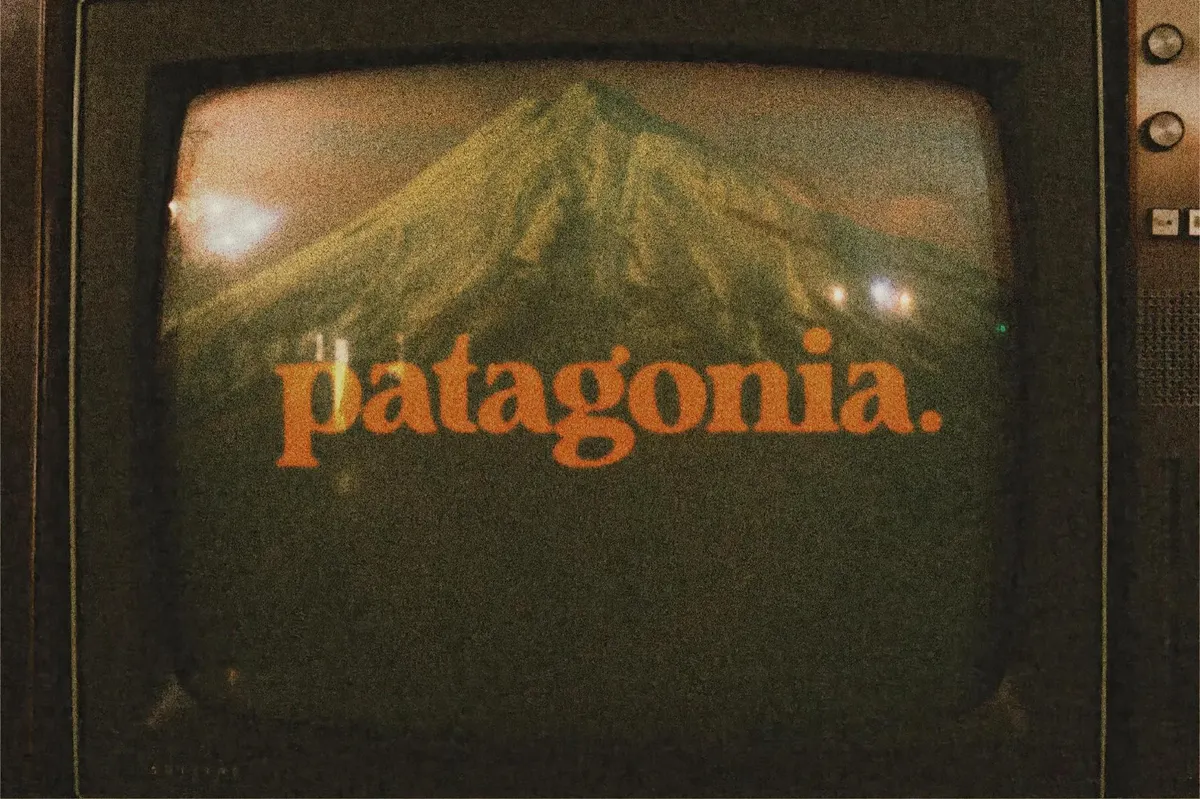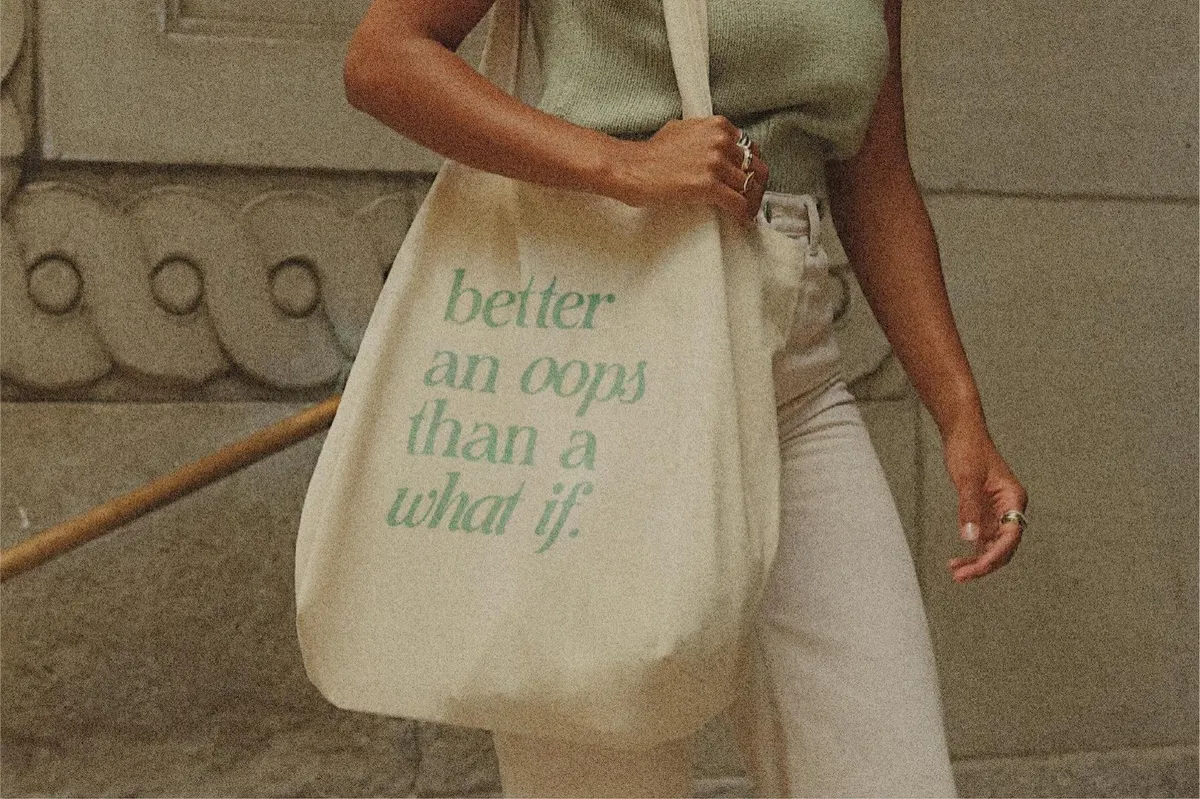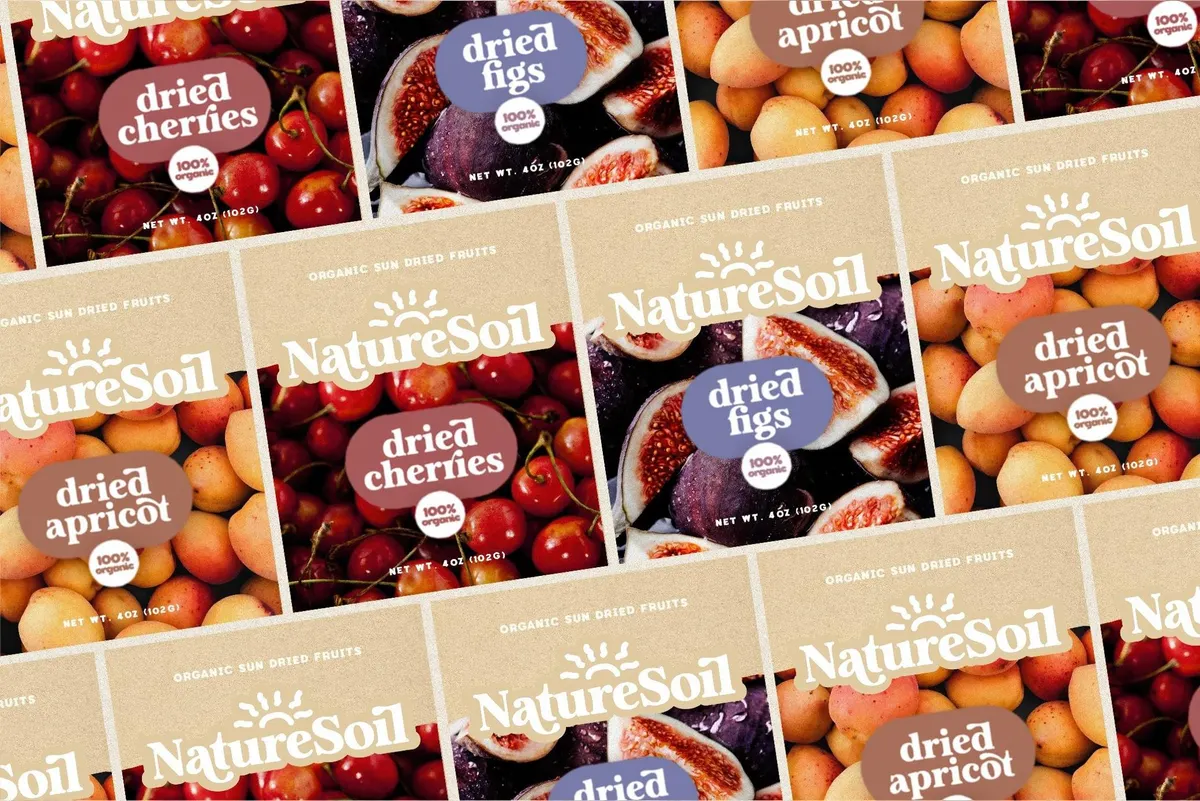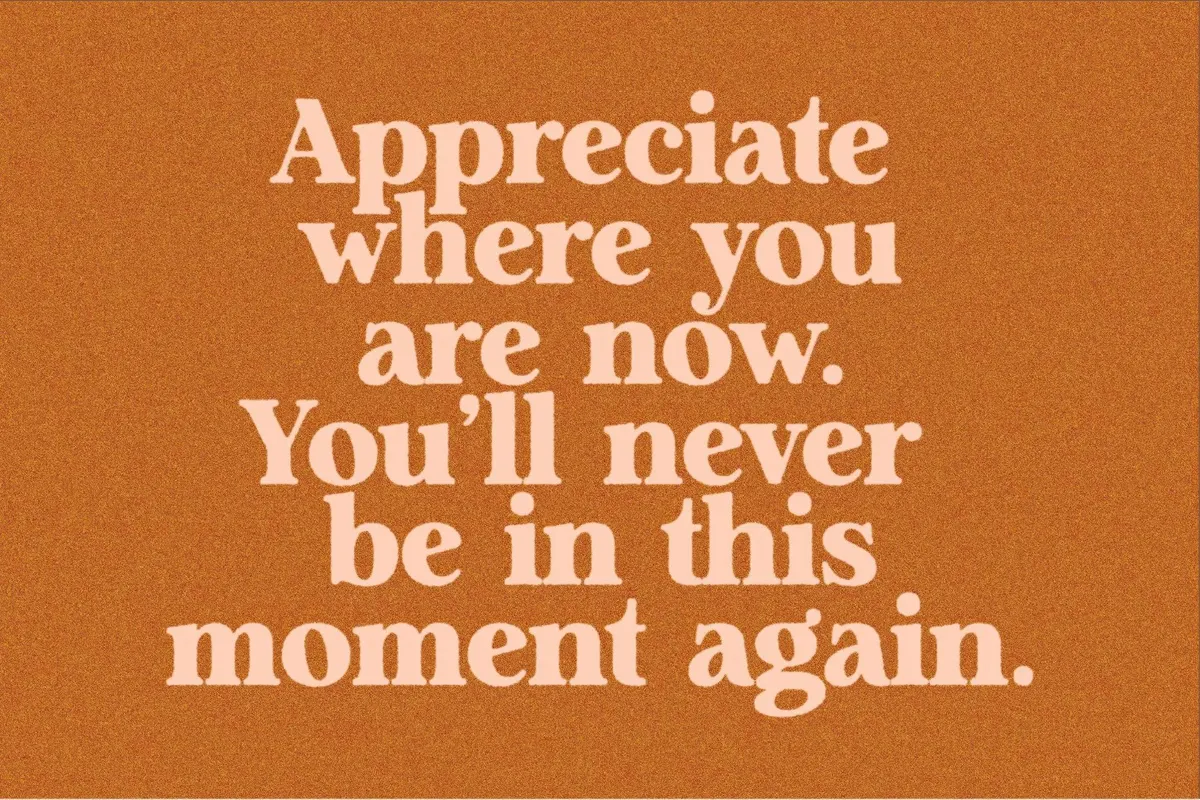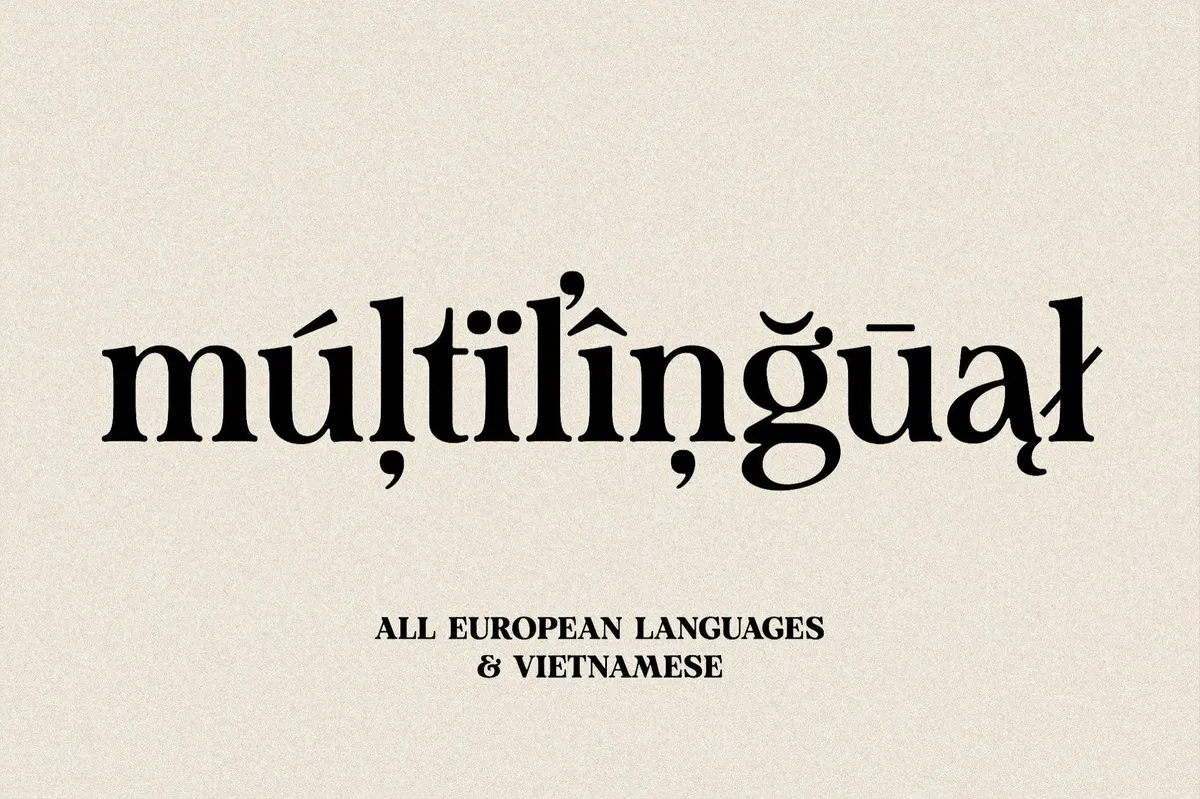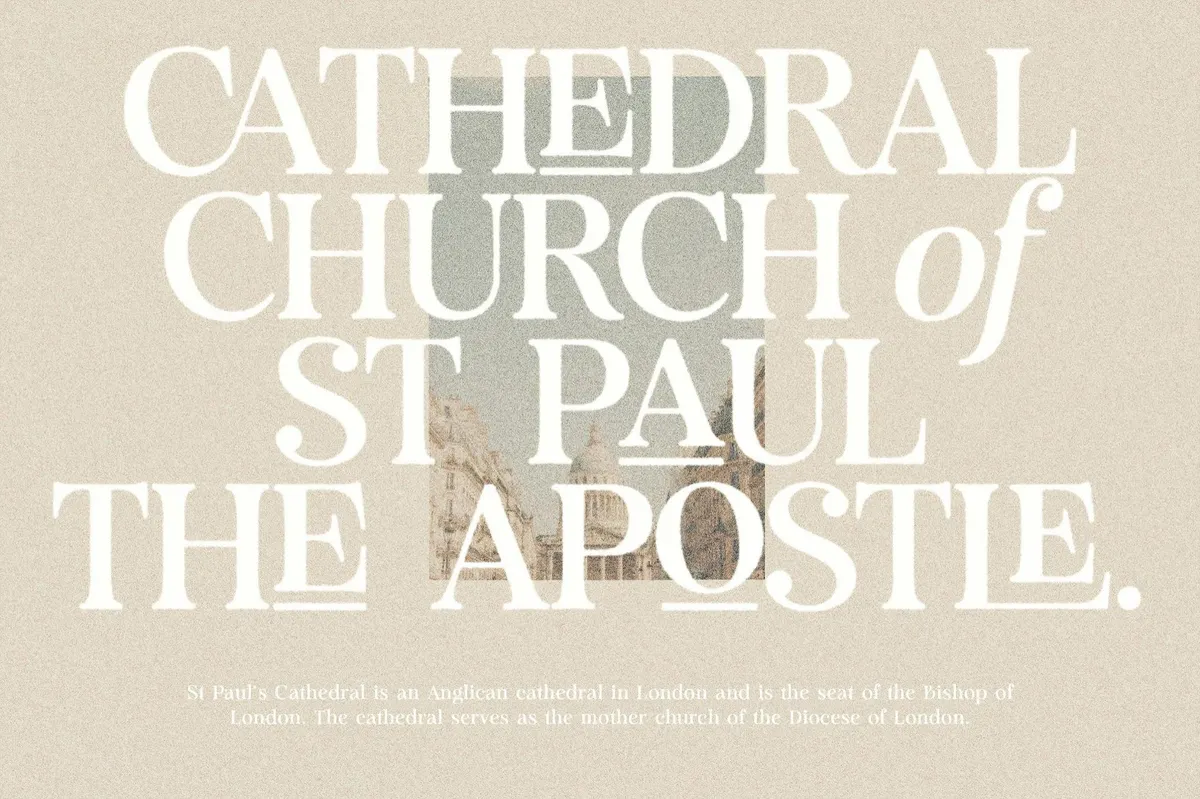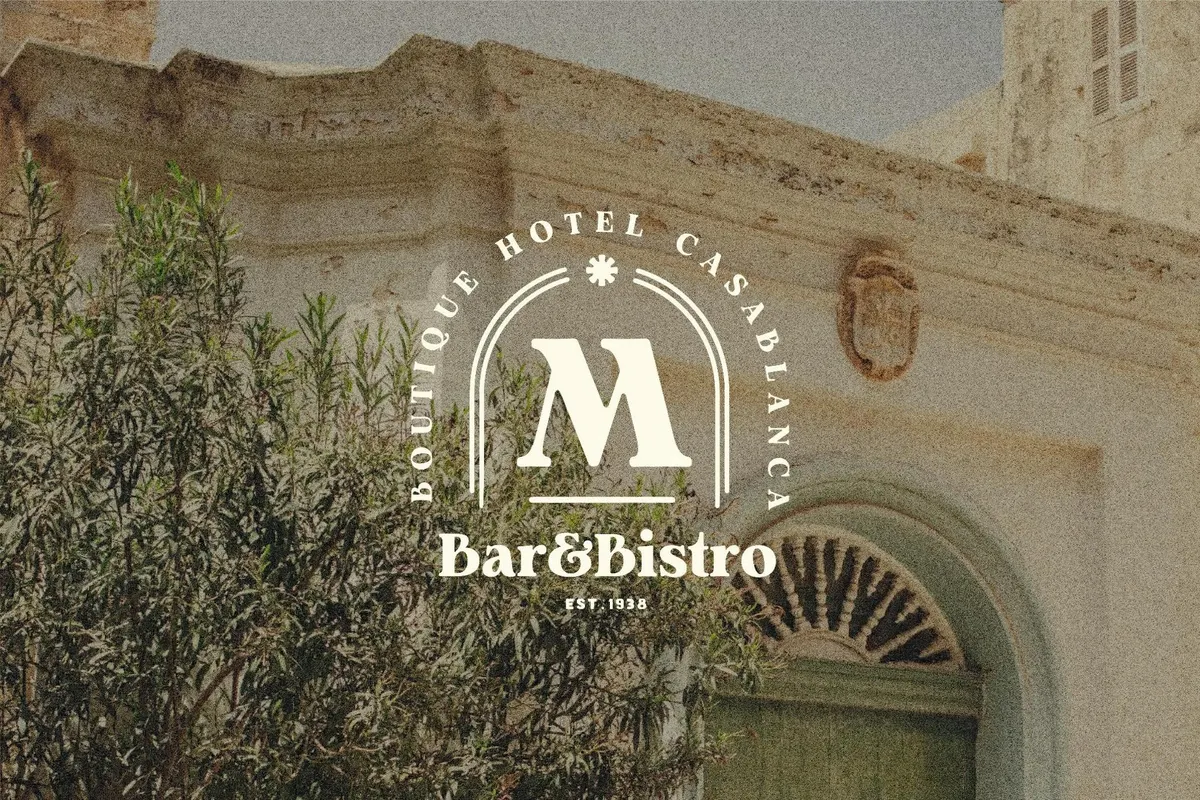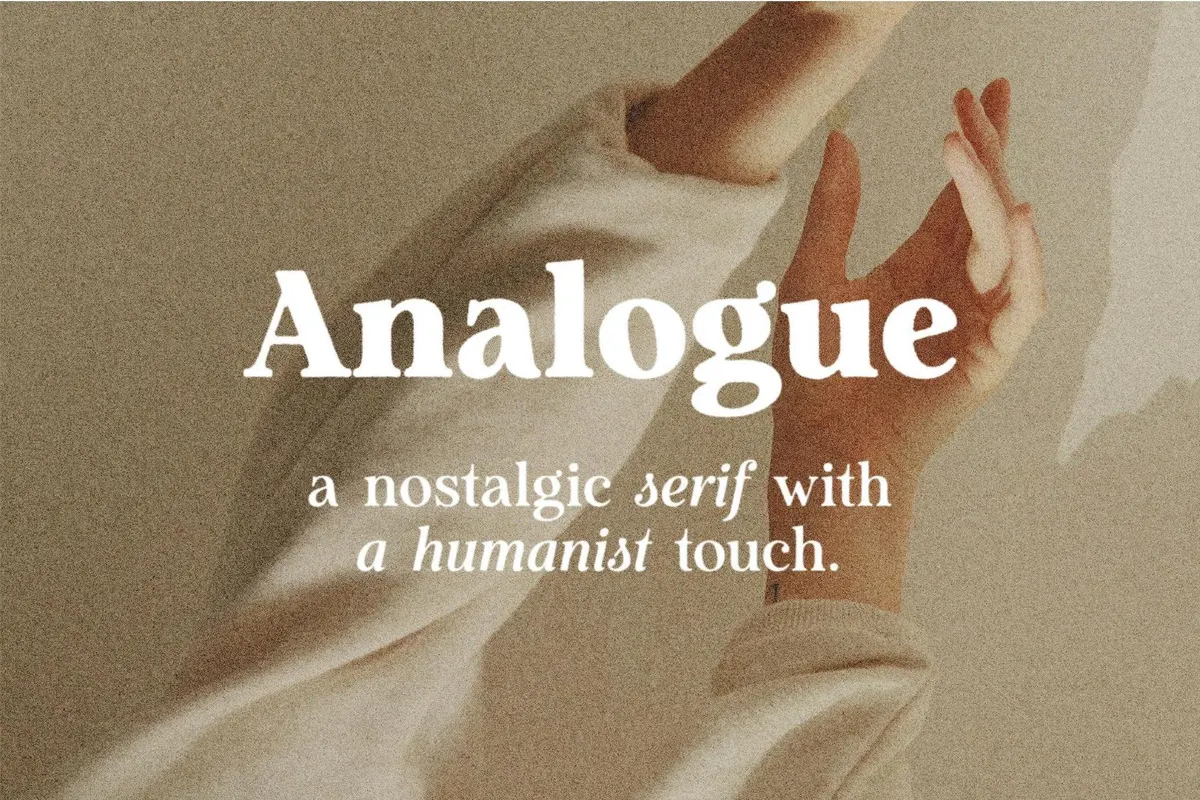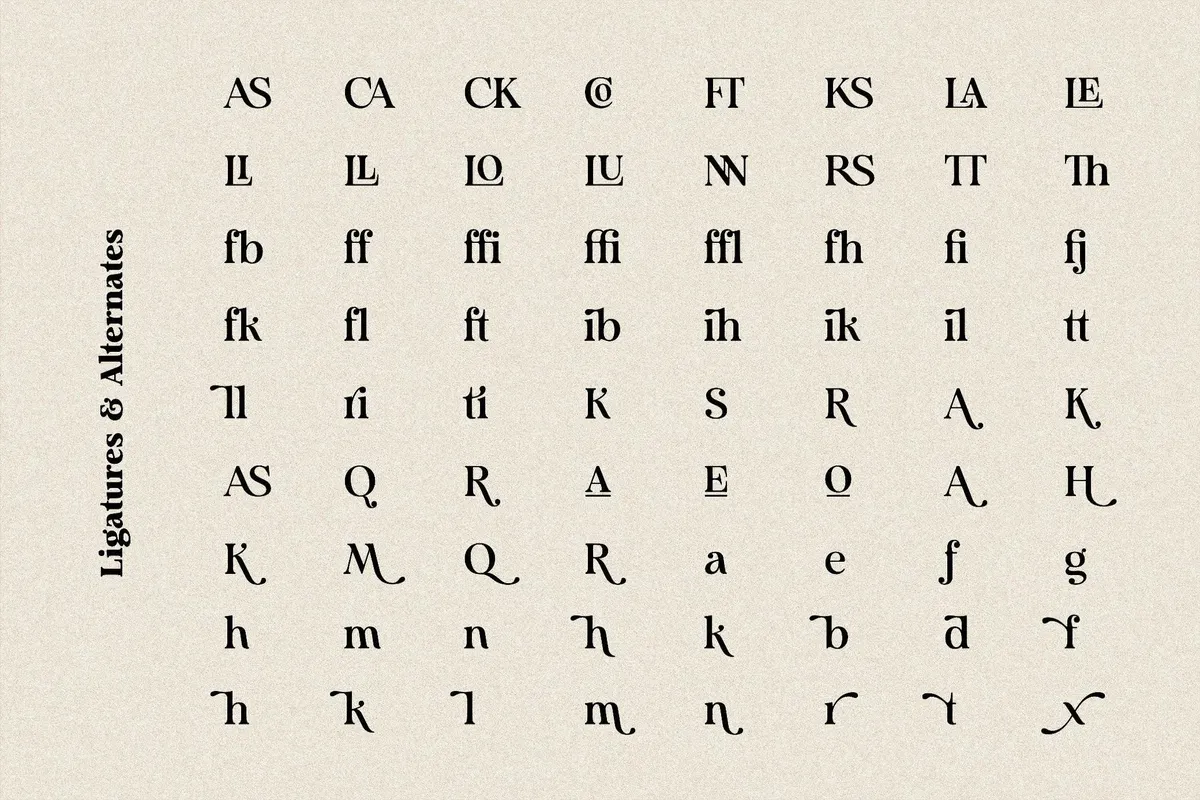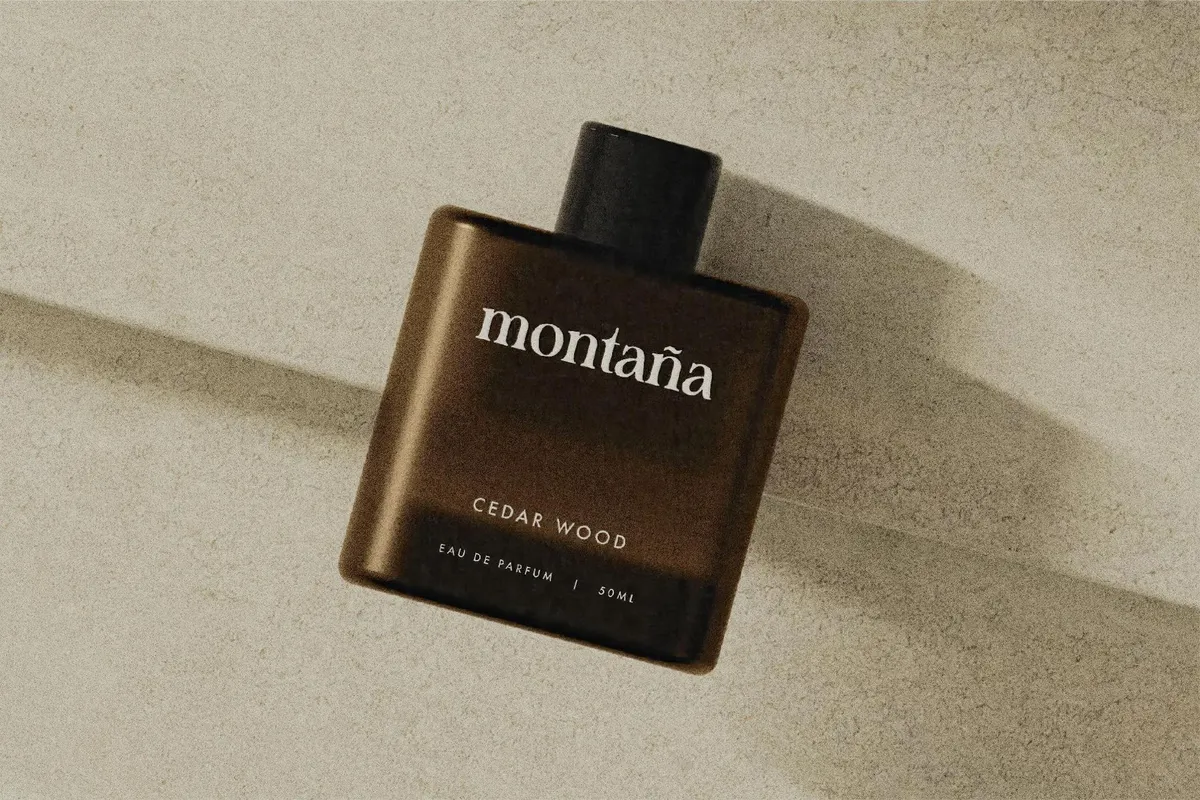
Analogue — Humanist Retro Serif
Analogue feels like it belongs on a book cover found in a thrift store, a nostalgic blog header, or an indie magazine spread. This a retro-inspired humanist serif with a distinctly warm, tactile, and nostalgic character. With its four lovingly elaborated styles, it's the typographic equivalent of dust motes in golden hour light.
Take a closer look. Analogue's softly rounded serifs evoke mid-century print and analog media. A subtle humanist structure gives the letterforms an organic, hand-touched quality. Add a complete character set and multilingual support here, and you've got an emotional type for editorial layouts, lifestyle branding, vintage-inspired packaging, or heartfelt personal projects.